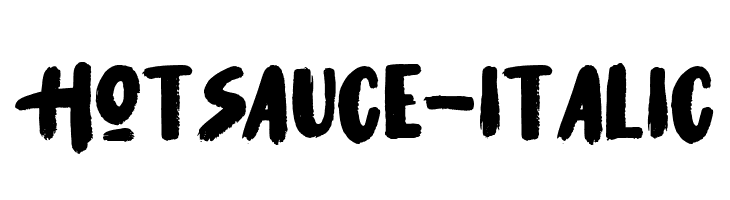
A playful, bold font with a hand-drawn, whimsical style.
A bold, expressive handwritten font with fluid, dynamic strokes.
A playful, hand-drawn font with bold strokes and a quirky style.